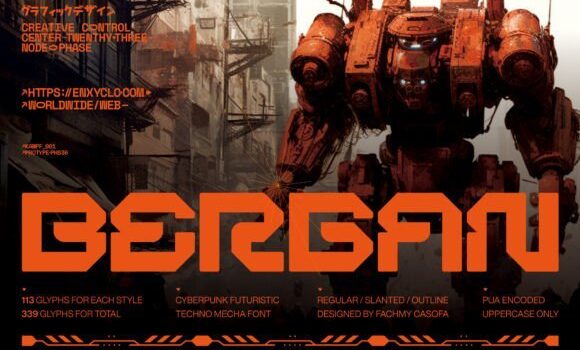
bergan
Bergan Font – Free Download Introduction to Bergan Font Bergan is a futuristic display font. 📸 Preview Gallery 6 images 📌 Product Name Bergan Font 👤 Author Enxyclo 📂 Category Explore ⬇️ Download Bergan Font FREE Free Download • Instant